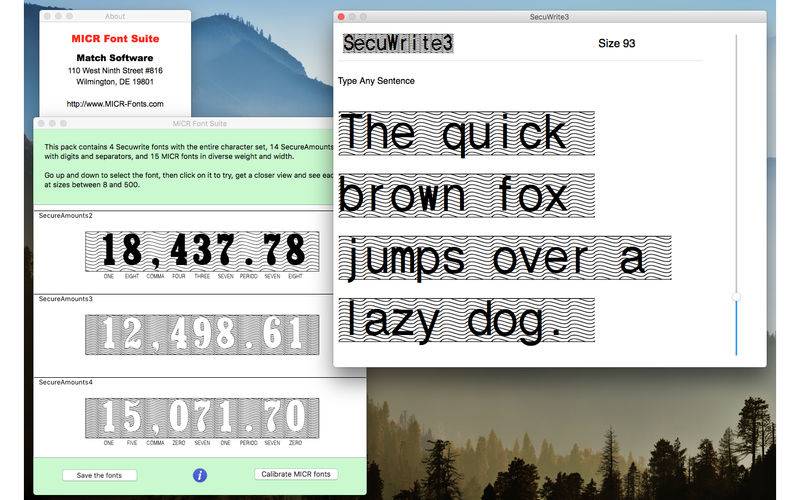
MICR (Magnetic Ink Character Recognition) strips are used by U.S. bank systems to automate check processing, around 68 Billion last year. These are the small letters at the bottom of checks.
This package contains a set of high precision MICR fonts for corporations and developers who want to print their own checks through their own software.
Also included is an exclusive calibration wizard to pick the best font for any configuration among the 15 available. Four secure fonts that support the entire character set with a fraud protection design, plus, to securely print amounts, a set of 14 exclusive SecureAmount fonts with elaborate anti-fraud techniques, such as networks of fine lines analogous to what is used on bank notes.
MICR E13B characters must have very precise dimensions, to generate reliable signal when going through the readers. Many MICR fonts around do not meet these standards, and not all MICR fonts are created equal. Some have positioning inaccuracies that create unreliable MICR strips, and may generate errors in the bank processing equipment, leading to manual processing fees.
The MICR E13B Match™ font set has been created with extremely accurate positioning, and tested with the finest benchmark systems. Under ideal conditions, there should be only one font in use, the MICR E13B Match. It has been created specifically to meet the ANSI and ABA (X9, 27-1995) banking standards when printed at exactly point size 12.
Unfortunately, the Mac printing chain is such, that several weak links can hinder results. Even the most precise of font data is translated at least twice along the printed chain : first, by the macOS printer driver, which converts the font outlines into data instructions (PostScript or PCL) usable by the printer, and secondly, by the printer internal logic circuits, which translate the outlines in data that will drive the actual printing hardware. Even at that last stage, outlines are not printed as simple lines, but as a very fine matrix of dots, by a laser beam, LED, or another technology. So a full set of fonts is provided, with dimensions 1% apart from each other. Two smaller sizes (MICRE13 M1 and MICRE13 M2) provide 1% and 2% smaller printing, respectively. Two bigger sizes (MICRE13 P1 and MICRE13 P2) provide 1% and 2% larger printing, respectively.
The MICR Calibration Wizard™ will let you easily choose the best font for your entire printing chain, hardware and software. On top of these, the pack contains bolder and lighter fonts, to accomodate different processes. For instance, typeset tends to print lighter, and you may need to compensate. The bolder the font, the higher the signal. In total 15 fonts will enable you to get the very best results from your system.
The MICR E13B Match™ font set is the only one that comes with the exclusive new MICR E13B Calibration Wizard™. Within minutes, using this astute calibration tool for all versions of macOS, from Lion (10.7) up to macOS Sierra (10.12), you will be able to generate accurate and reliable MICR strips. Simply launch the MICR Calibration Wizard™ from the Start menu, and follow the simple instructions on the screen. When finished, the program will give you the exact name of the font that must be used to obtain optimum results.
Changes in the hardware (printer, controller) and software (macOS version, driver) configuration may modify the MICR printing. With the MICR Calibration Wizard™, you will be able to recalibrate your system anytime you upgrade.
In a few minutes, the MICR Calibration Wizard™ will give you the exact MICR font to use amongst the 15 fonts supplied in the pack.
Simple instructions will let you calibrate accurately and efficiently your MICR fonts.
These fonts support several useful monetary symbols, such as dollars, cents, pound sterling, yen, and euro.